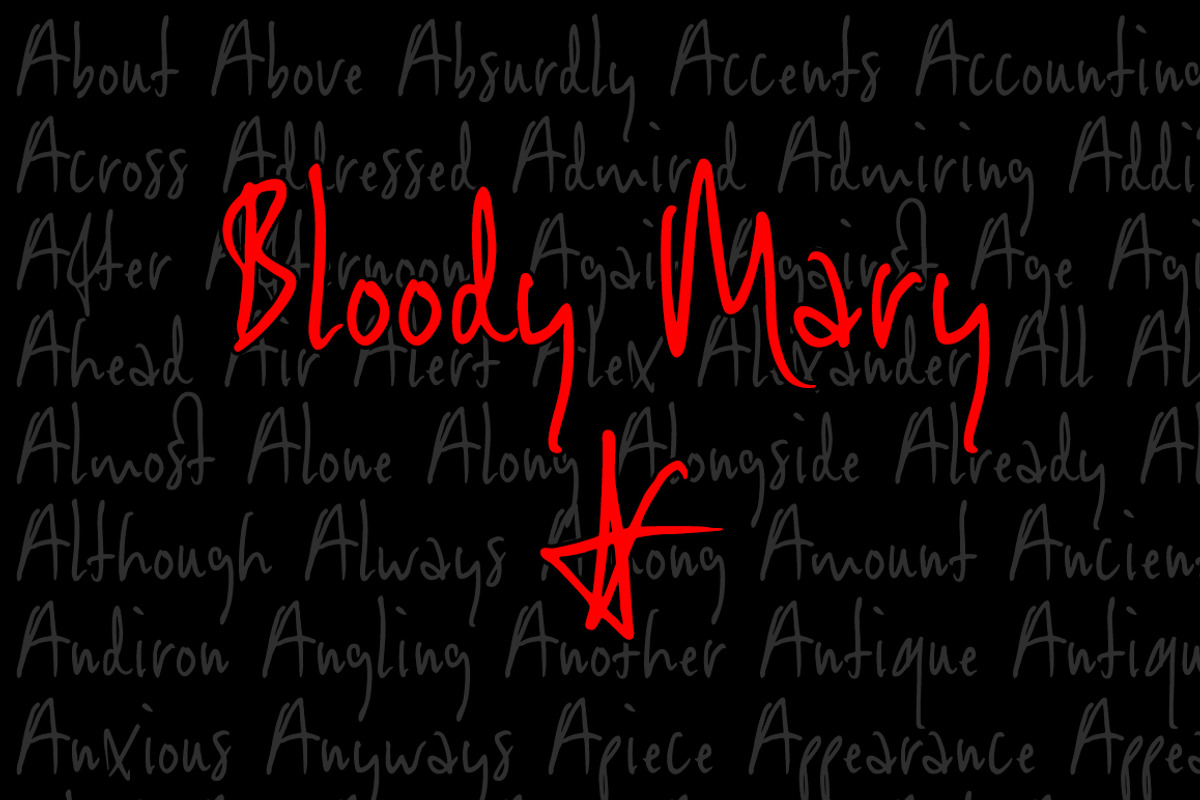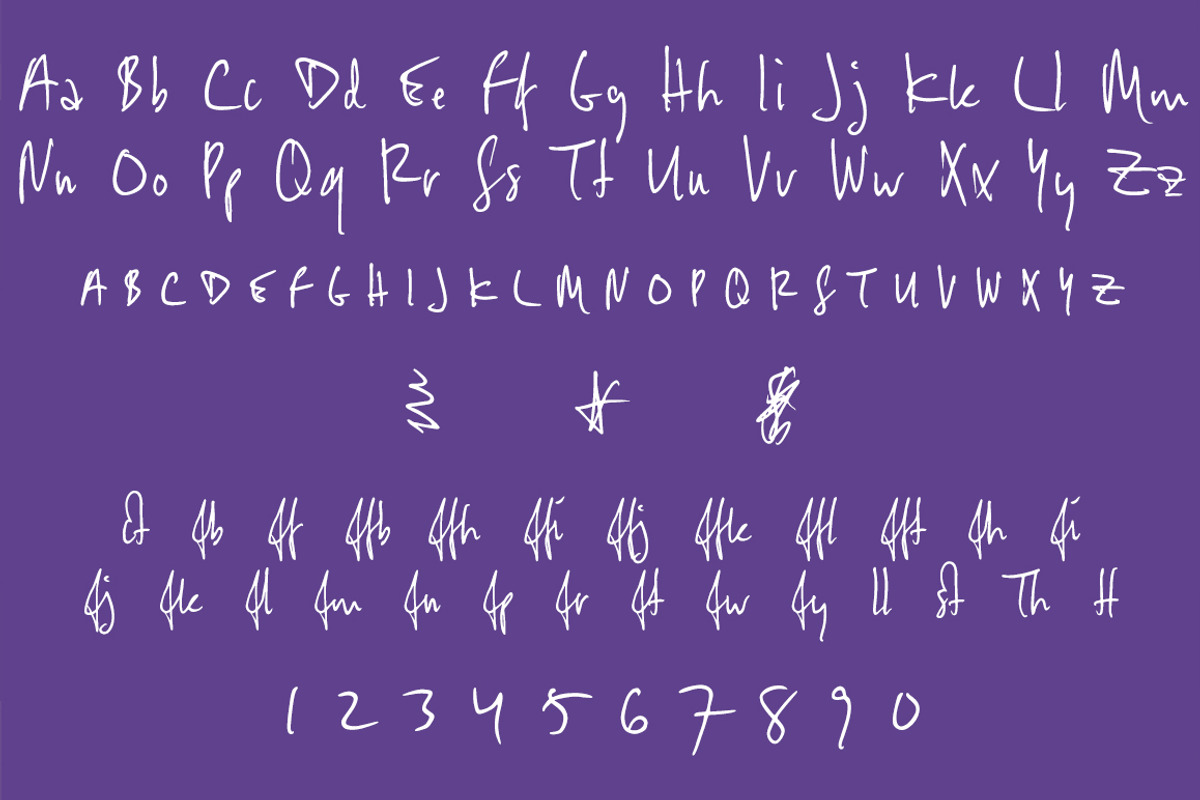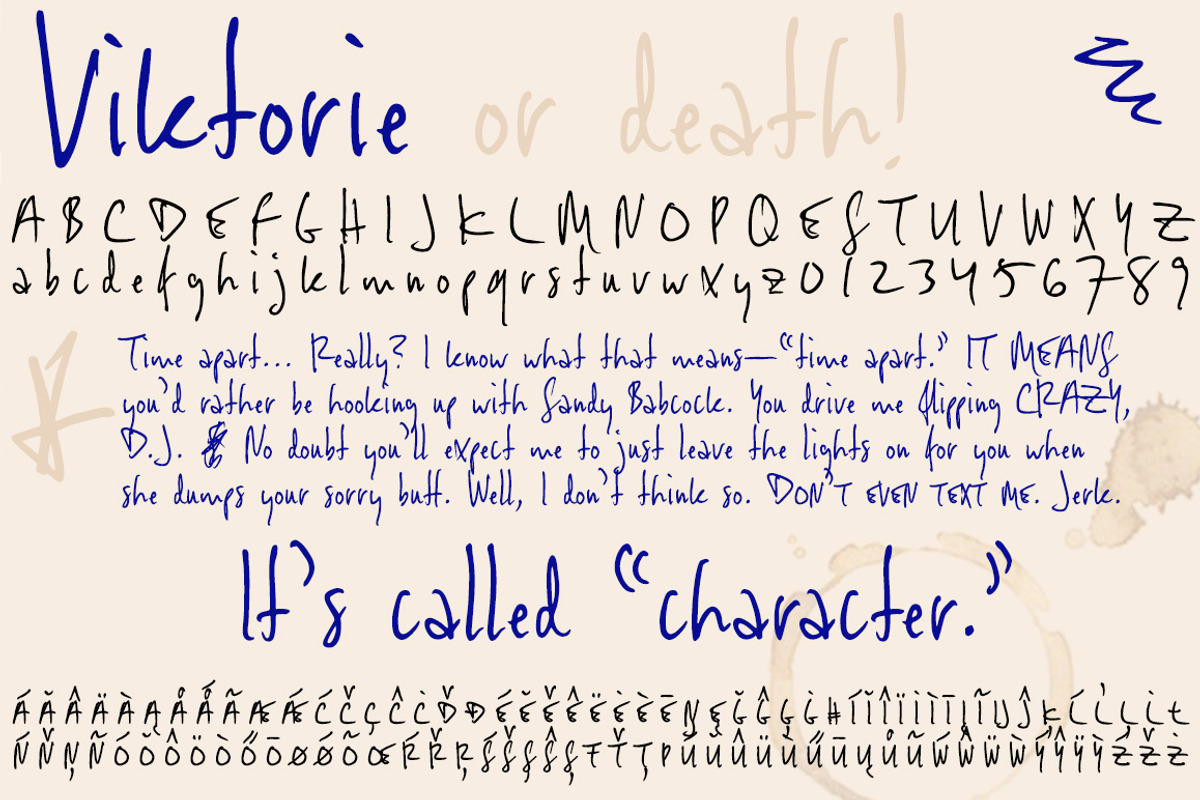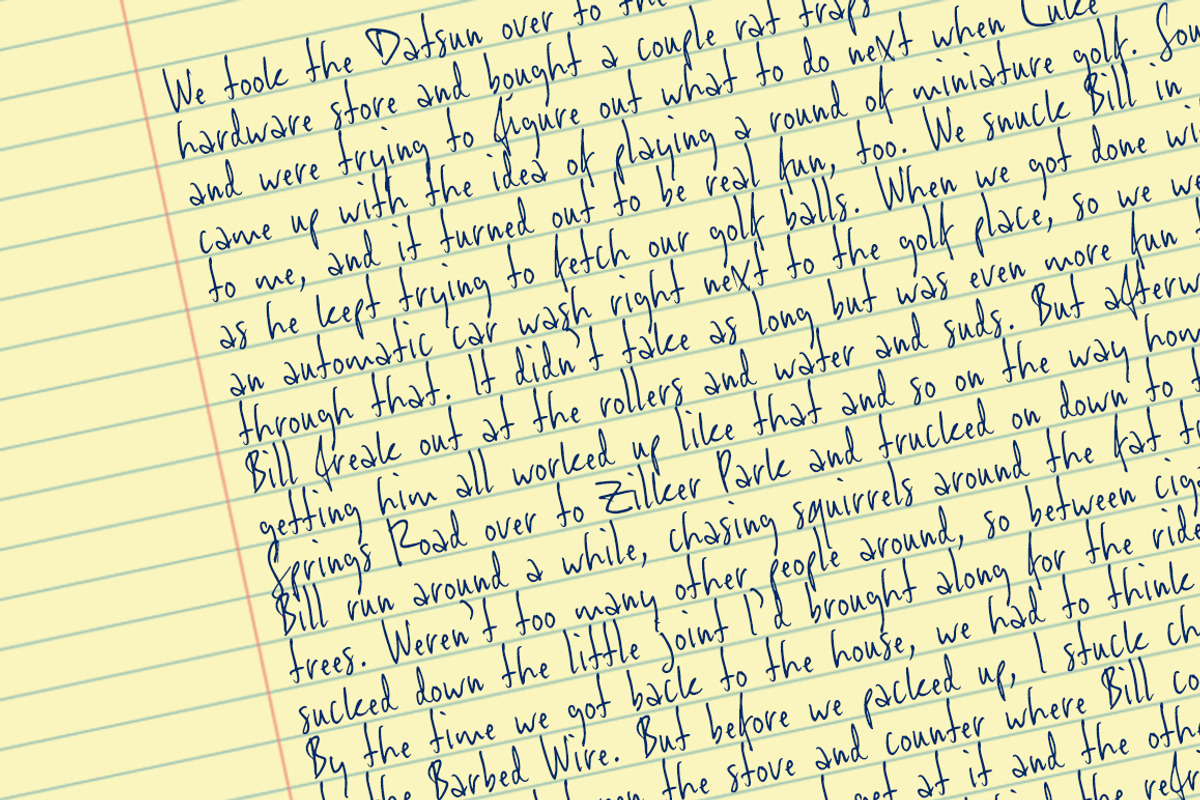
Viktorie, a jotted-down font
Viktorie, a jotted-down font by Three Islands Press is a font selected for branding, posters, packaging, typography.
- These energetic characters pay little heed to such arbitrary contraints as baseline or x-height—taken together, they give the effect of casu
- Has a single, medium-light weight and comes, of course, with a full character set, including true small caps, numerous ligatures, and Centra
Why Viktorie, a jotted-down font is worth a look
Viktorie, a jotted-down font by Three Islands Press fits naturally into Branding, posters, packaging, typography.